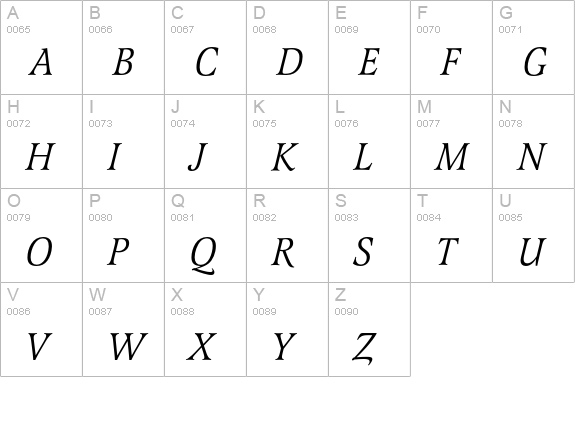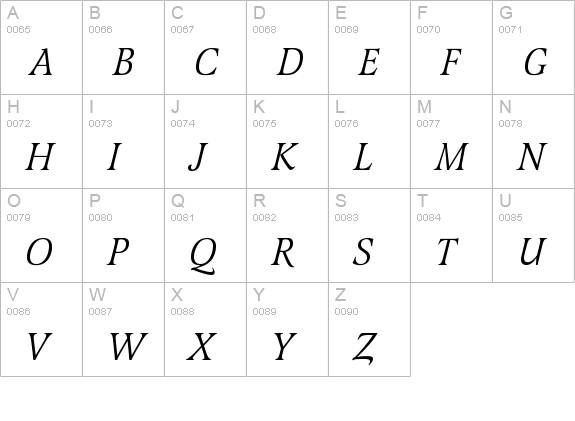
LatienneEF-Italic Font Details
LatienneEF-Italic is a distinctive, italic variant in the LatienneEF typeface family \xE2\x80\x94 well suited to design and typography projects.
LatienneEF-Italic is a breathtakingly elegant font that exudes timeless beauty and sophistication. Its graceful curves and delicate strokes effortlessly capture a sense of luxury and refinement, making it the perfect choice for projects that require an air of elegance and class. This italic variant of the LatienneEF font family adds a touch of stylish flair to any design. Its slanted and cursive letterforms create a sense of movement and flow, lending a dynamic and captivating quality to text. Whether used for headings, titles, or body text, LatienneEF-Italic effortlessly elevates the visual impact of any composition. The versatility of LatienneEF-Italic is truly remarkable. Its legibility remains uncompromised even at smaller sizes, ensuring that every letter is clear and crisp. This makes it an excellent choice for print materials such as magazines, brochures, and invitations, as well as digital designs like websites and social media graphics. One of the most appealing aspects of LatienneEF-Italic is that it is available for free download at FontsMarket.com. This means that designers and creatives can access this stunning font without any cost, making it accessible to everyone. Whether you're a professional designer or a hobbyist, LatienneEF-Italic empowers you to create beautiful, high-quality designs without breaking the bank. To sum it up, LatienneEF-Italic is a font that combines timeless elegance with modern versatility. Its graceful curves and cursive letterforms add a touch of sophistication to any design, while its legibility ensures that your message is always clear. And the best part? It's freely available for download at FontsMarket.com, so you can start using this exquisite font in your projects right away.